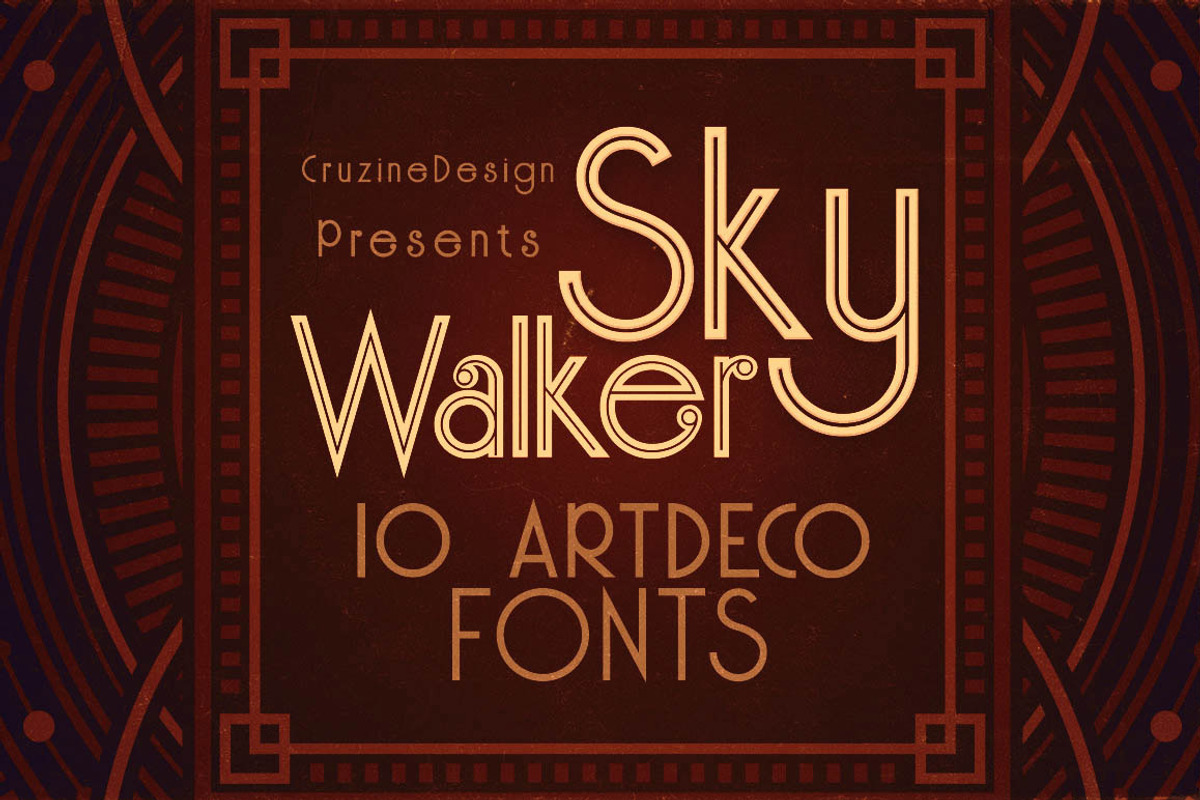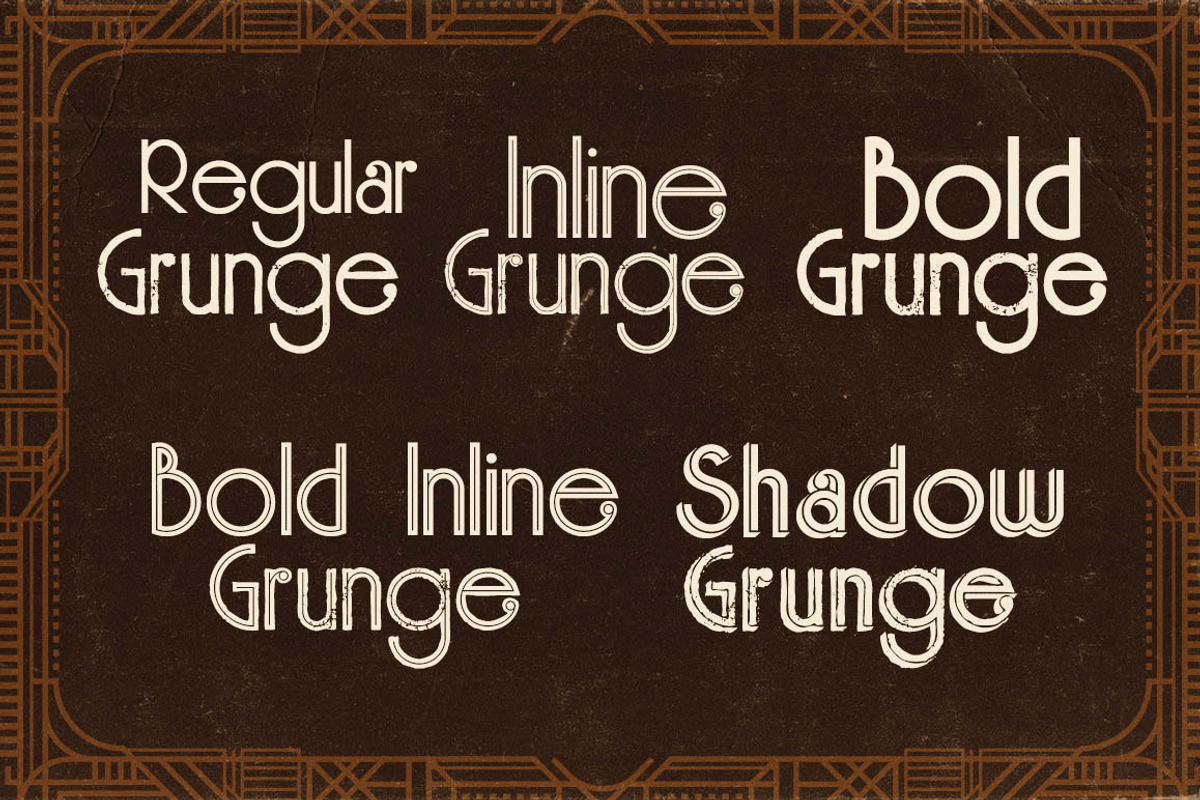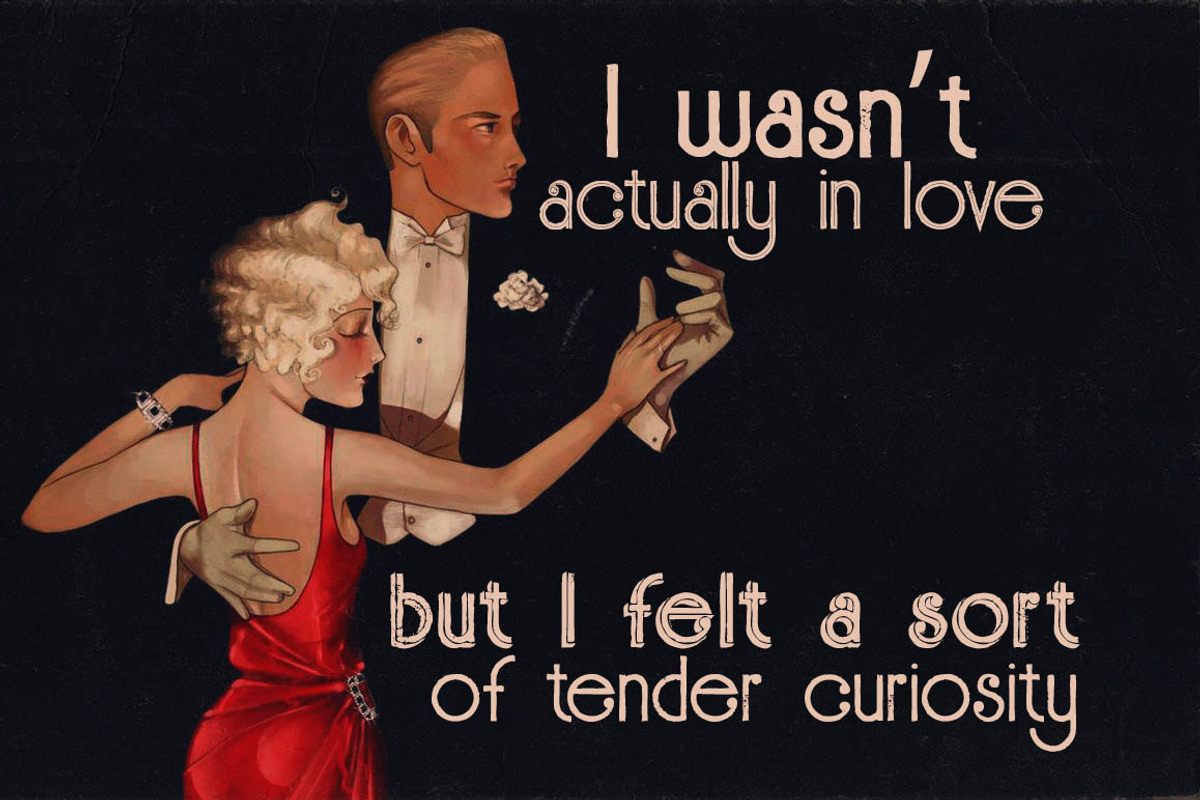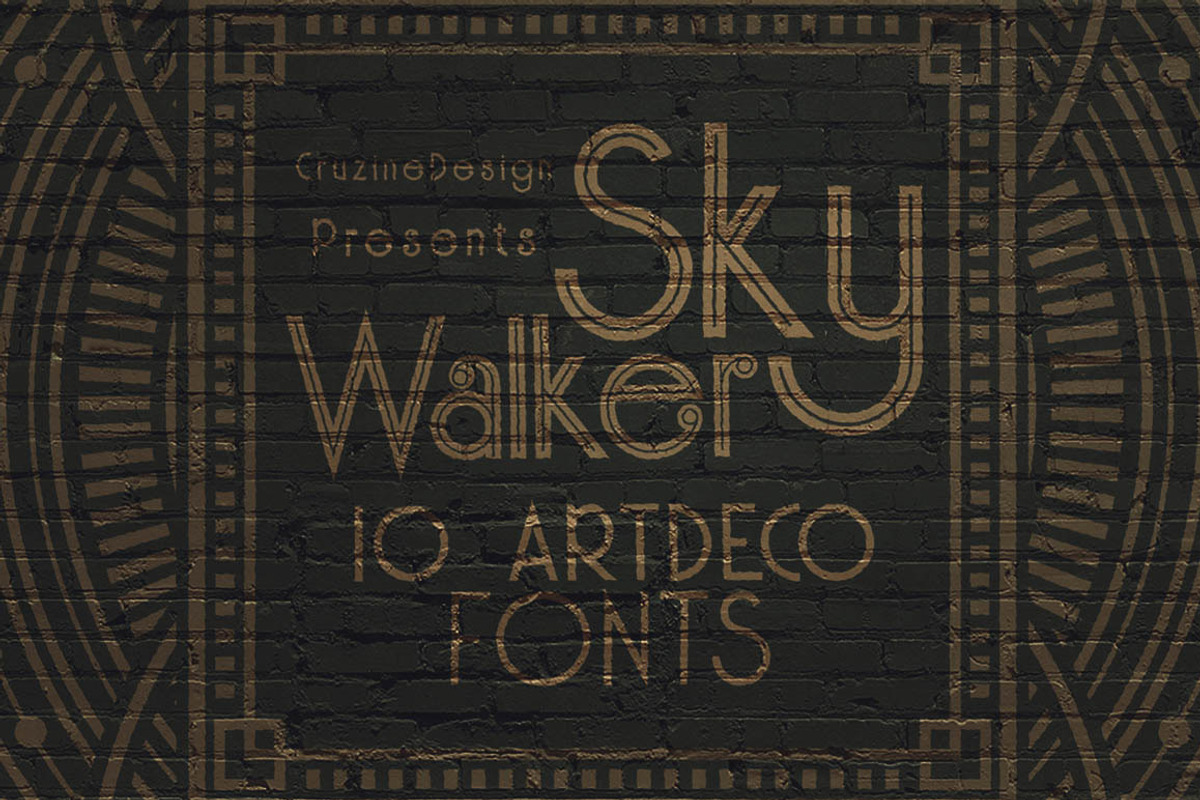
Skywalker - ArtDeco Typeface
Skywalker - ArtDeco Typeface by Cruzine is a font selected for branding, posters, packaging, typography.
Skywalker - ArtDeco Typeface by Cruzine fits naturally into Branding, posters, packaging, typography.